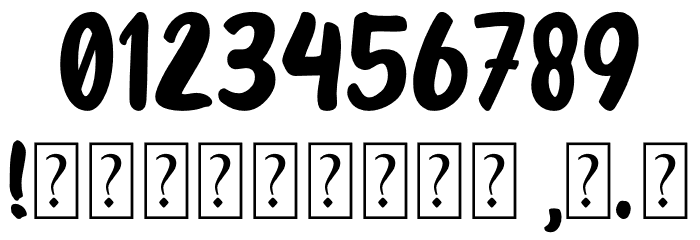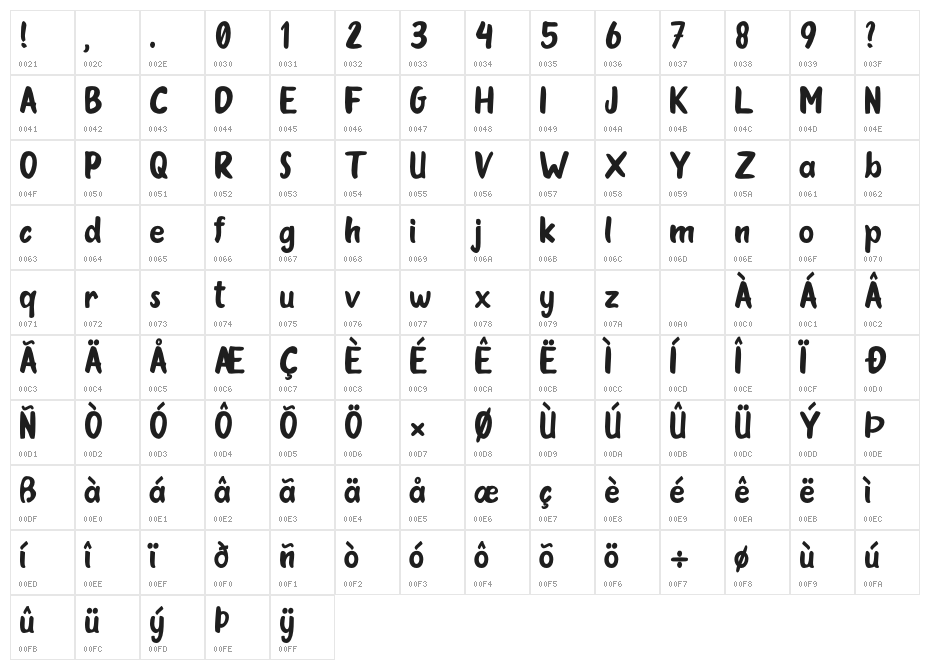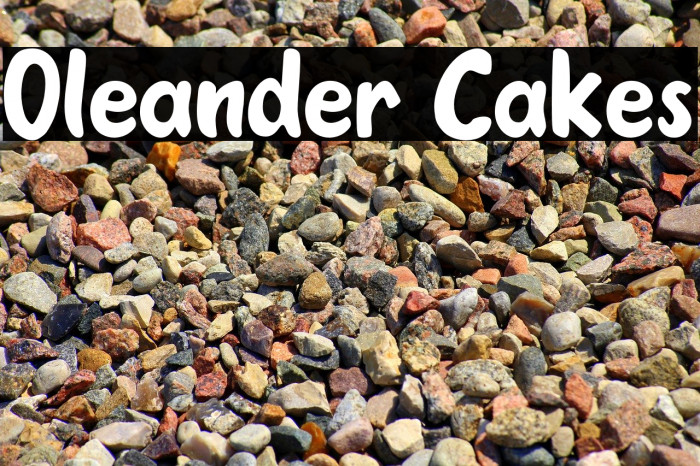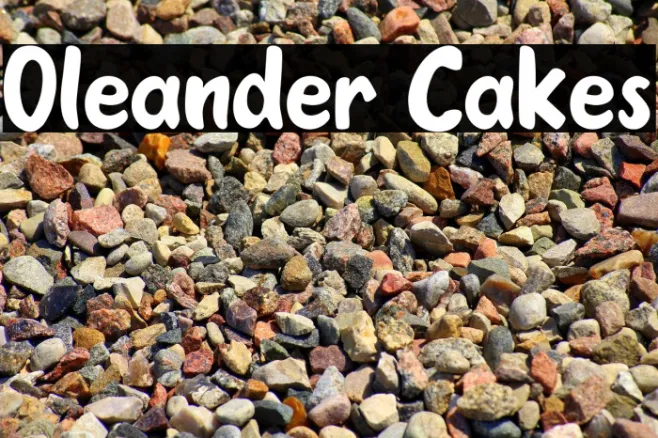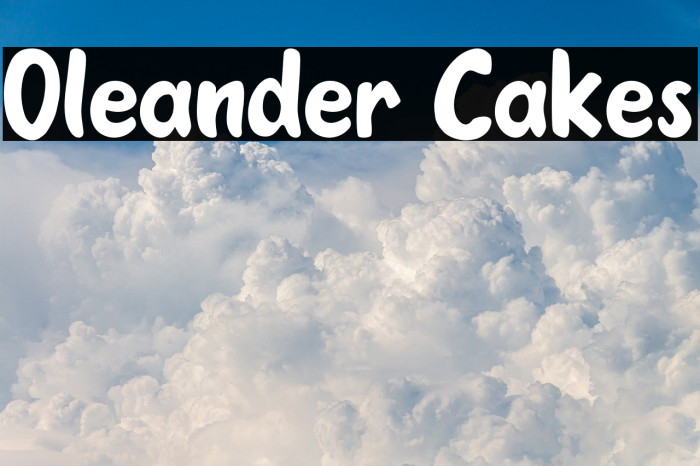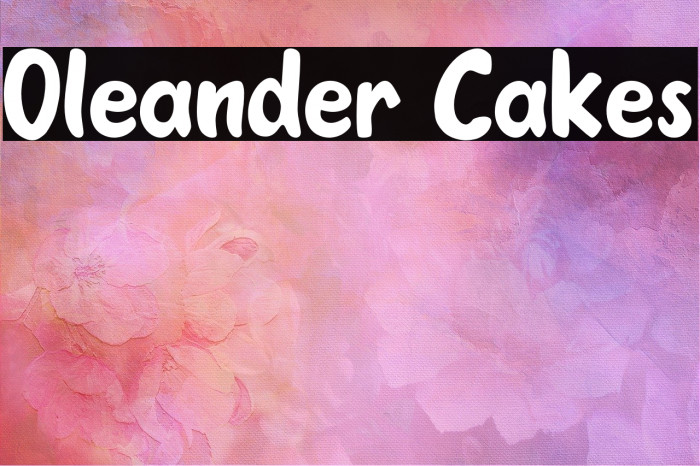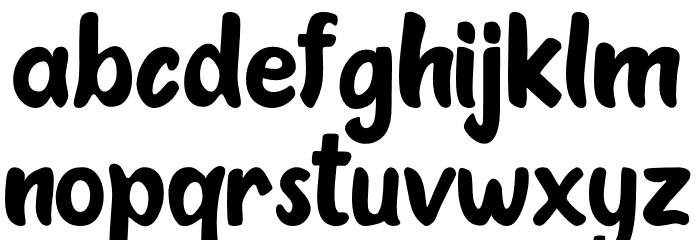
Oleander Cakes Font
Oleander Cakes Description
This font exhibits a playful and bold handwritten style, characterized by its thick strokes and rounded edges. The uppercase letters are slightly taller and more prominent, while the lowercase letters maintain a consistent flow with a casual, friendly appearance. The numerals are bold and easily distinguishable, complementing the overall style. Special characters retain the same playful essence, making the font versatile for various creative applications. Its unique charm and readability make it suitable for projects that require a personal touch.
| Proposed Projects | Ideal for greeting cards, children's books, playful branding, and social media graphics. |